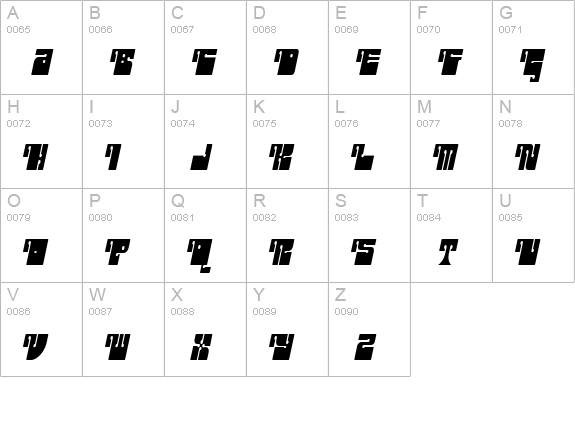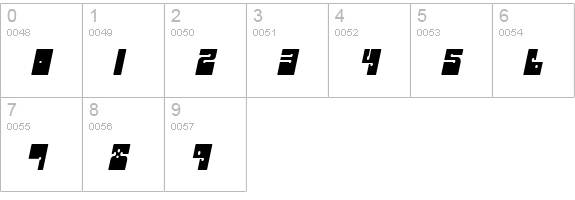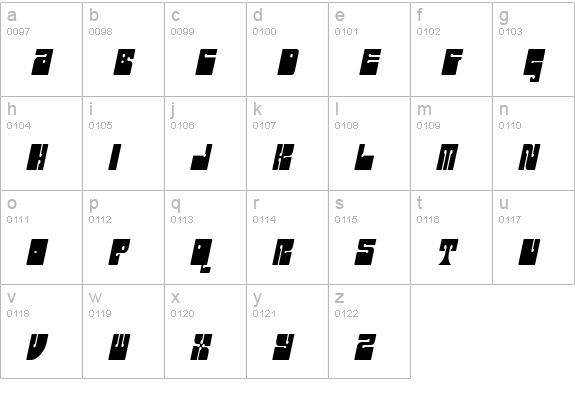
Outright Televism Font Details
Introducing Outright Televism font, a modern and unique typeface that is sure to make a statement in your designs. This font features clean lines and a contemporary style that will add a touch of sophistication to any project. With its sleek and elegant appearance, Outright Televism is perfect for a wide range of applications, from branding and advertising to web design and more. But the best part? Outright Televism is completely free to download at FontsMarket.com. That's right, you can access this stunning font without spending a dime, making it a valuable addition to your font collection. Don't miss out on the opportunity to enhance your designs with the beauty and versatility of Outright Televism font. Download it today and see the difference it can make in your projects.